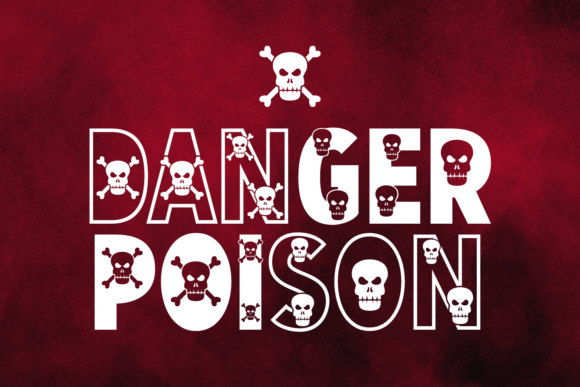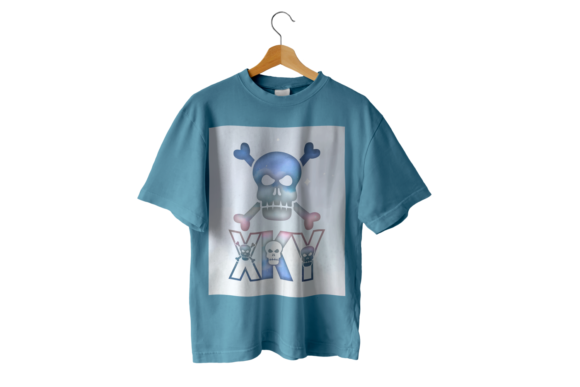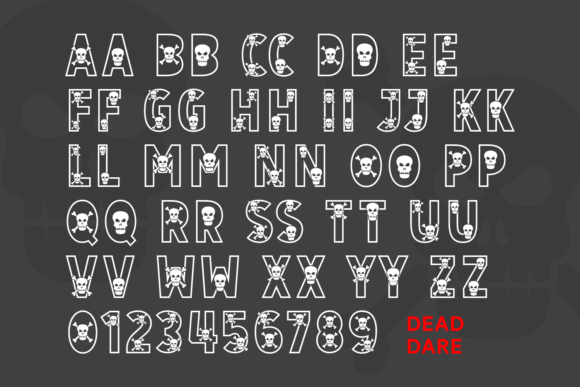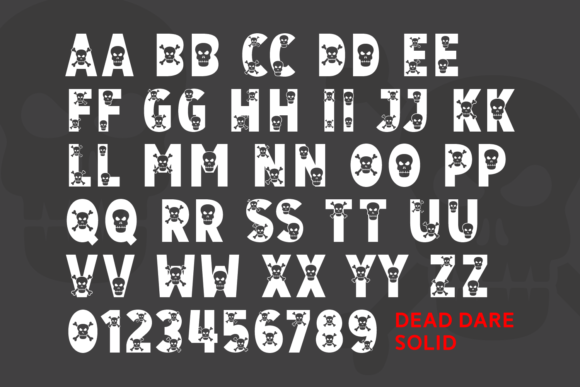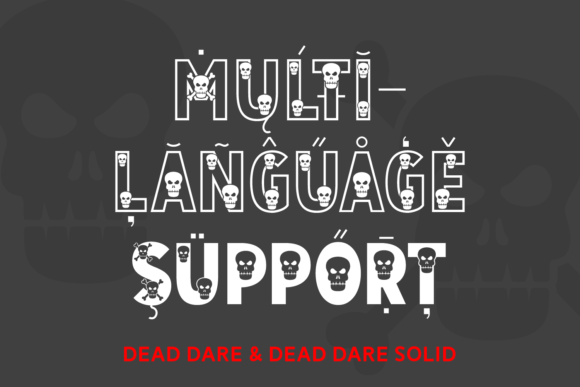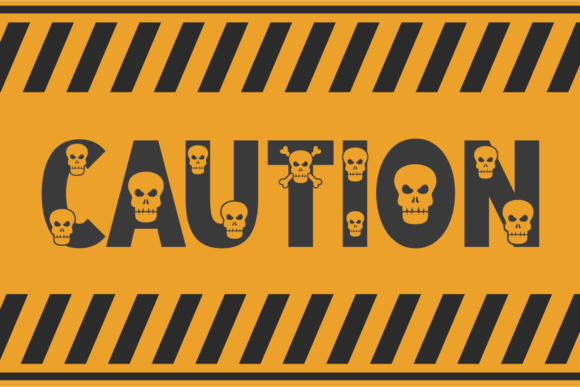
Unleash the Danger: Exploring the Dead Dare Font
Are you ready to add a touch of danger to your designs? Look no further than the Dead Dare font, a decorative typeface that’s sure to make a statement. This duo font comes in regular and solid versions, featuring creepy skull designs, skeletons, and bones that will add a bold and edgy touch to your projects.
What is Dead Dare Font?
Dead Dare is a unique decorative font that’s perfect for designers and crafters looking to add a bit of danger to their work. The font features a range of characters, including letters, numbers, and symbols, all designed with a spooky twist. The regular version of the font features intricate designs with skulls, skeletons, and bones, while the solid version provides a bold and solid look.
Key Features of Dead Dare Font
- Duo Font: Dead Dare comes in two versions: regular and solid. This allows you to choose the perfect style for your project.
- Creepy Designs: The font features a range of creepy skull designs, skeletons, and bones that will add a touch of danger to your work.
- Wide Range of Characters: Dead Dare includes a wide range of characters, including letters, numbers, and symbols, making it perfect for a variety of projects.
- High-Quality Design: The font is designed with high-quality graphics, ensuring that it looks great in any size or resolution.
Uses for Dead Dare Font
So, what can you use the Dead Dare font for? The possibilities are endless! Here are a few ideas to get you started:
- Danger Signs: Use Dead Dare to create bold and eye-catching danger signs that are sure to grab attention.
- Halloween Cards: Add a spooky touch to your Halloween cards with Dead Dare’s creepy designs.
- T-Shirts and Apparel: Use Dead Dare to create bold and edgy designs for t-shirts, hoodies, and other apparel.
- Posters and Flyers: Create eye-catching posters and flyers with Dead Dare’s unique and attention-grabbing designs.
- Covers and Packaging: Use Dead Dare to add a bold and edgy touch to your book covers, packaging, and other materials.
Tips for Using Dead Dare Font
Here are a few tips for using Dead Dare font in your designs:
- Use it sparingly: Dead Dare is a bold font, so use it sparingly to avoid overwhelming your design.
- Pair it with other fonts: Pair Dead Dare with other fonts to create a unique and interesting contrast.
- Experiment with colors: Dead Dare looks great in a range of colors, so experiment to find the perfect hue for your design.
Dead Dare font is a unique and bold decorative font that’s perfect for designers and crafters looking to add a touch of danger to their work. With its creepy skull designs, skeletons, and bones, this font is sure to make a statement. Whether you’re creating danger signs, Halloween cards, or t-shirts, Dead Dare is the perfect choice. So why not give it a try and see what kind of bold and edgy designs you can create?